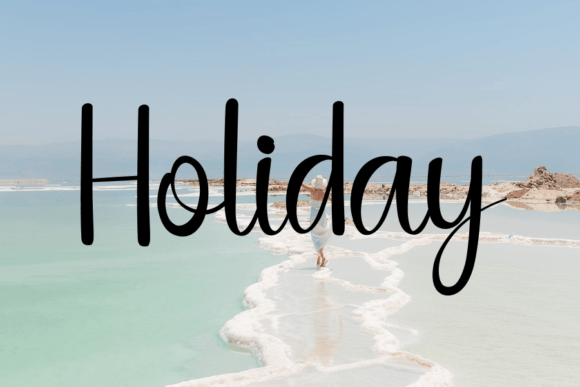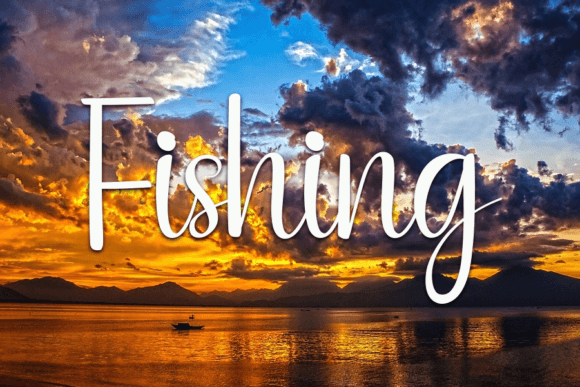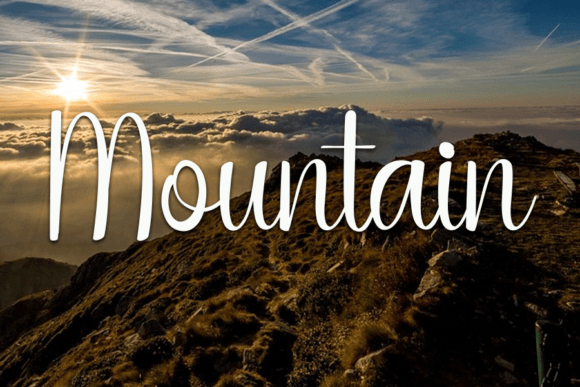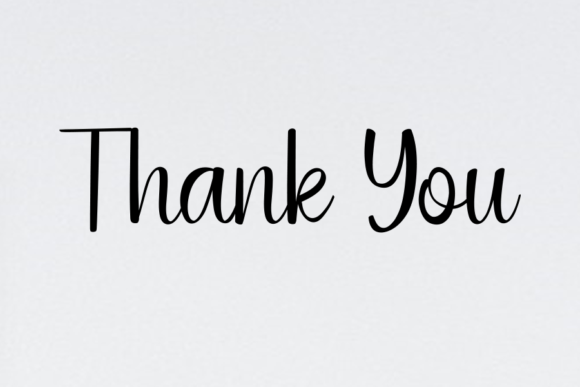
Snowing Font
About Snowing Font
Snowing Font is a fresh handwritten script designed to bring natural elegance to any creative project. With smooth curves and authentic strokes, this typeface offers versatility that makes it a perfect addition to any designer’s library. Because of its balanced style, Snowing Font is ideal for invitations, greeting cards, posters, logos, and branding projects.
A Fresh Handwritten Typeface with Natural Flow
Handwritten fonts add warmth and individuality to designs, and Snowing Font highlights this with graceful strokes. Its balanced characters ensure readability, while its natural rhythm makes text feel effortless. Moreover, its clean structure adapts seamlessly to both traditional and modern aesthetics. As a result, this handwritten script is a dependable option for creatives who value originality and refinement.
For personal stationery and event projects, Snowing Font is an excellent choice. For example, it can transform a wedding invitation into an elegant keepsake. In addition, it works beautifully for birthday greetings, seasonal cards, and thank-you notes. Because of its natural flow, every project feels heartfelt, stylish, and memorable.
A Script Typeface for Logos and Branding
Businesses and professionals aiming for distinction can rely on Snowing Font. It brings sophistication and personality to logos, packaging, and product labels. Furthermore, on social media, it enhances posts, banners, and promotional graphics with a handwritten charm. When paired with minimalist sans serif fonts, Snowing Font achieves harmony between professionalism and creativity.
Another advantage of SnowingFont is its adaptability across mediums. In print, it shines on posters, brochures, magazines, and merchandise. Digitally, it elevates websites, blogs, and presentations with authenticity. Since it scales beautifully across both small and large sizes, this script remains practical for a wide range of creative uses.